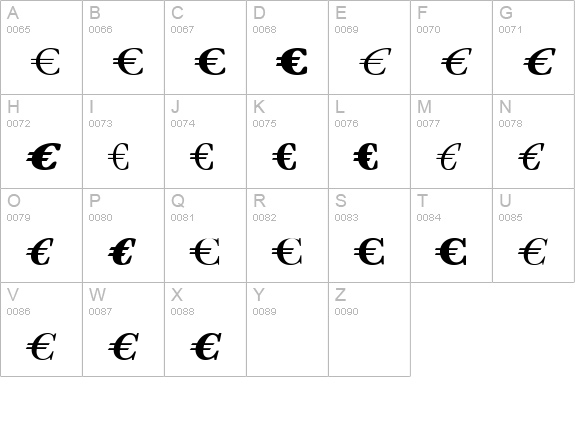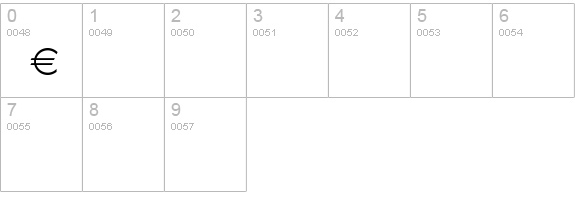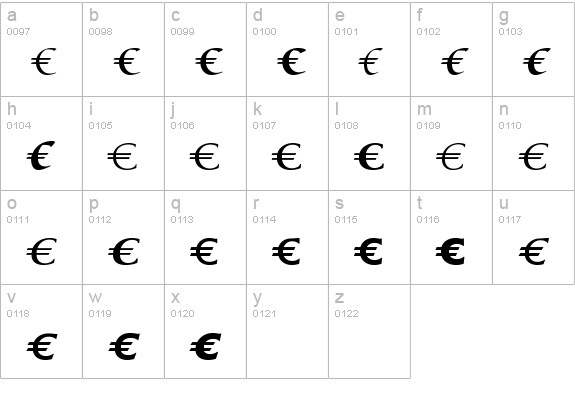
EuroSerifEF-Six is a sophisticated and elegant serif font that exudes timeless beauty and charm. With its classic yet modern design, this font is perfect for adding a touch of sophistication to any project. The clean lines and graceful curves of EuroSerifEF-Six make it ideal for a wide range of applications, from branding and advertising to editorial design and packaging. What sets EuroSerifEF-Six apart is not just its striking aesthetics, but also its versatility. Whether you're looking to create a professional business card, a stylish magazine layout, or a memorable logo, EuroSerifEF-Six has you covered. The font's excellent readability and legibility make it a great choice for both print and digital designs. And the best part? EuroSerifEF-Six is available for free download at FontsMarket.com. Now you can elevate your designs with this exquisite font without breaking the bank. Don't miss out on the opportunity to enhance your projects with EuroSerifEF-Six's timeless elegance and sophistication. Download it today and start creating stunning designs that will leave a lasting impression.